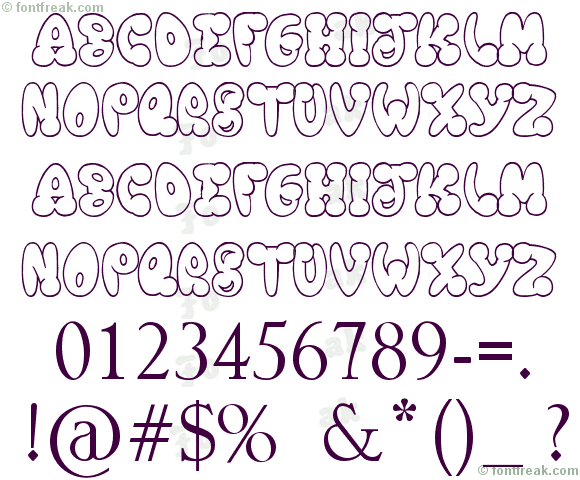
Chooka Zoon
Chooka Zoon, created by Jonathan S. Harris, is a distinctive display typeface that embodies a playful and whimsical character, making it an excellent choice for various creative projects. This font features rounded, bulbous letterforms that exude a friendly and approachable vibe. The stroke weight is consistent, with a smooth, uniform appearance that enhances readability while maintaining a light-hearted aesthetic. The spacing between characters is generous, allowing each letter to breathe, which further contributes to its playful nature. Decorative elements such as subtle irregularities and playful curves add a unique charm, making the Chooka Zoon font an engaging choice for designers.
This typeface is particularly well-suited for use cases like children's book covers, where its friendly design can capture young readers' attention. It also shines in branding for playful businesses, such as ice cream shops or toy stores, where a fun and inviting atmosphere is essential. Additionally, Chooka Zoon can elevate wedding invitations, adding a touch of whimsy to the special day. Graphic designers might find this font useful for crafting eye-catching social media graphics that aim to engage audiences with a sense of fun. Content creators can also leverage this typeface in promotional materials, ensuring their messaging stands out in a crowded marketplace.
Targeted at graphic designers, small business owners, and content creators, Chooka Zoon offers a refreshing alternative to conventional typefaces. Its unique style sets it apart from more traditional options, allowing users to convey creativity and approachability in their projects. For anyone looking to make a memorable impression, the Chooka Zoon font free download is an excellent resource to enhance visual storytelling and brand identity. With its distinctive character and versatility, Chooka Zoon invites creativity and exploration in various design applications.